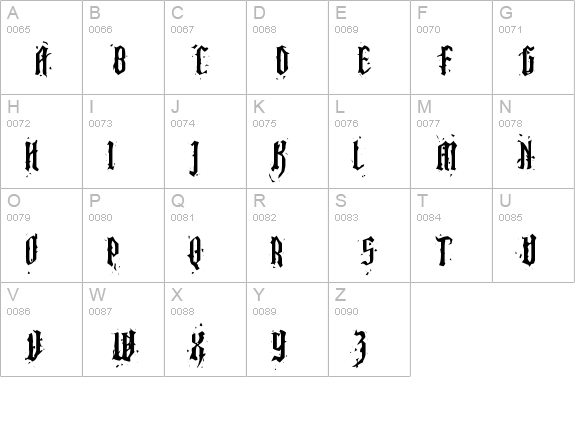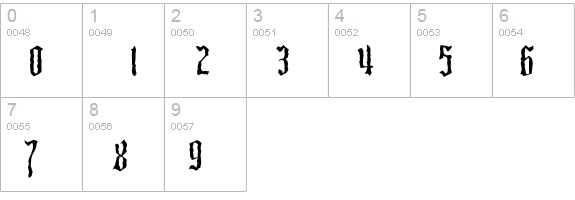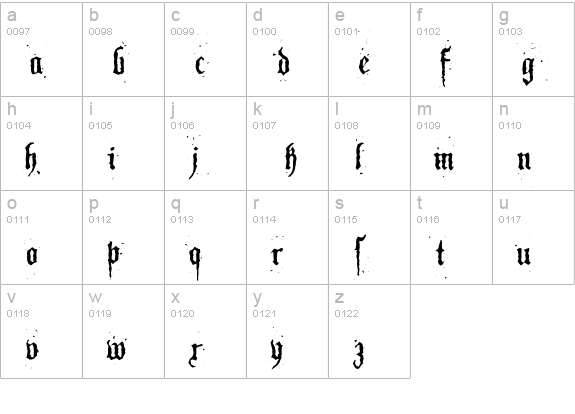
Pillbox Opaque Font Details
Introducing Pillbox Opaque, a captivating and versatile font that is sure to make a bold statement in any design project. With its unique combination of sleek lines and sharp edges, this font effortlessly blends modernity with a touch of sophistication. Pillbox Opaque is the perfect choice for those seeking a font that exudes creativity and originality. Its distinct and eye-catching appearance is bound to grab attention and leave a lasting impression. Whether you're designing a logo, creating a poster, or crafting a website, this font will elevate your work to new heights. But what sets Pillbox Opaque apart from other fonts? It's not only its stunning aesthetics but also its versatility. This font is incredibly adaptable, making it suitable for a wide range of projects. From headlines to body text, Pillbox Opaque effortlessly adjusts to fit any design need. One of the best things about Pillbox Opaque is that it is free to download. Yes, you read that right! This incredible font can be yours without spending a dime. Simply head over to FontsMarket.com and unleash your creativity with this fantastic typeface. So, why wait? Download Pillbox Opaque today and experience the limitless possibilities it offers. Whether you're a professional designer or a passionate hobbyist, this font is sure to become an invaluable asset in your creative arsenal. Let Pillbox Opaque empower your designs and make a lasting impression on your audience.